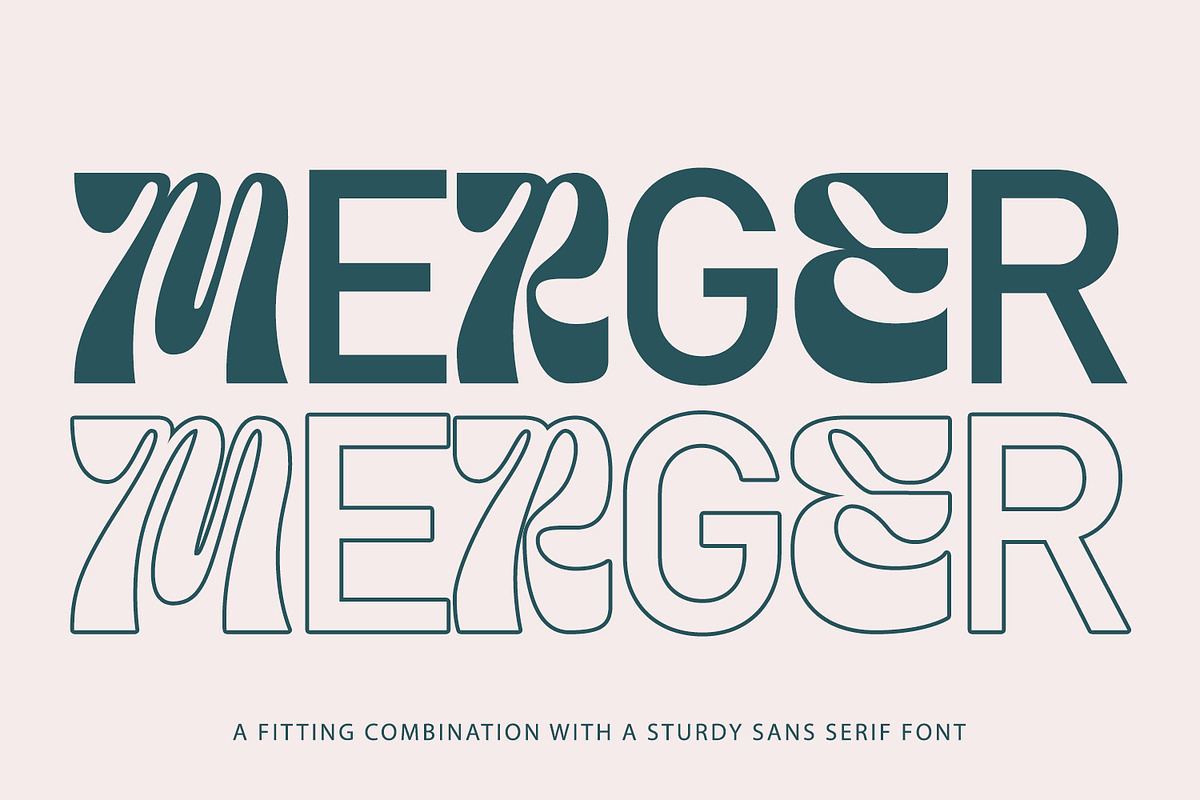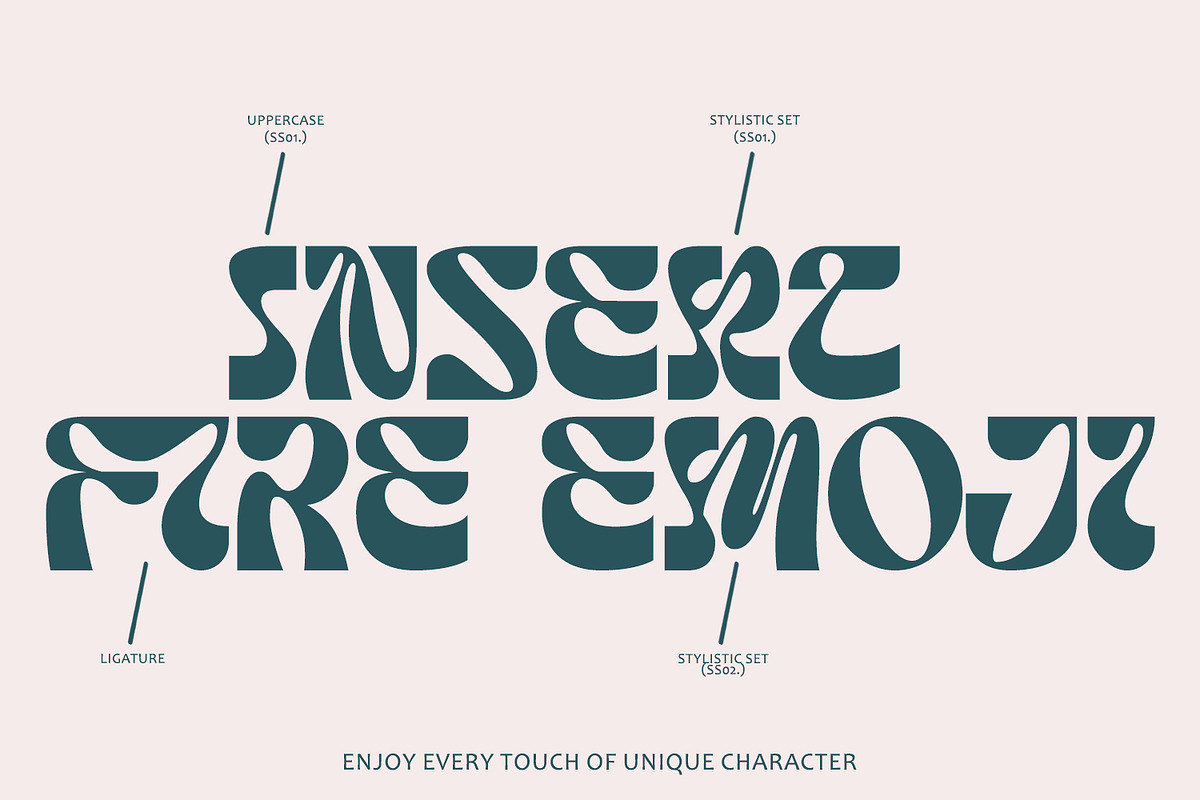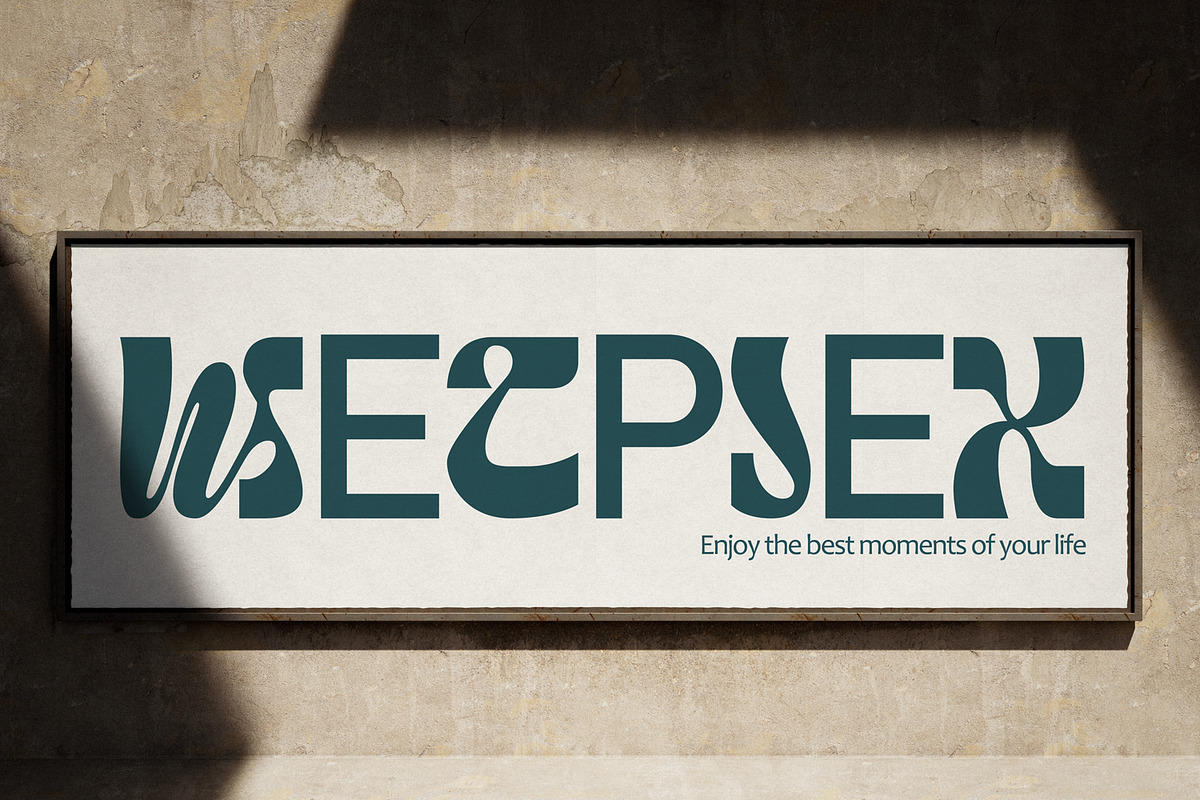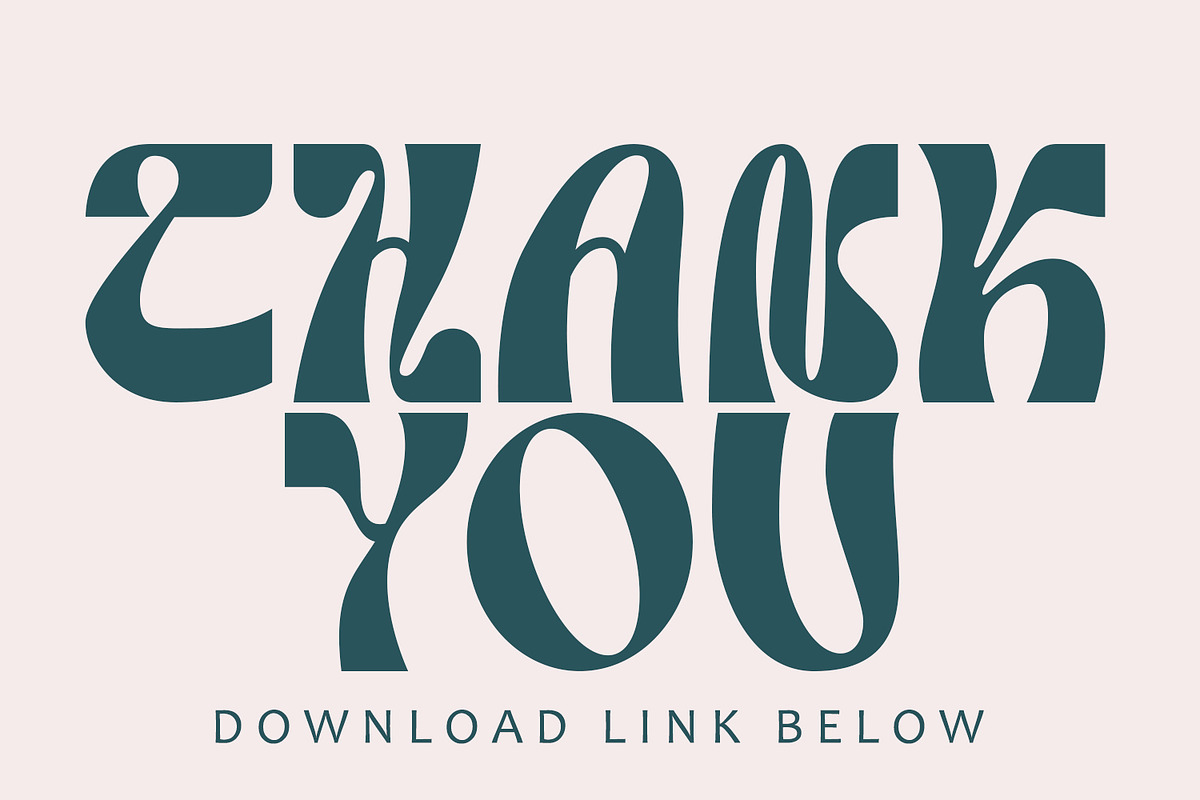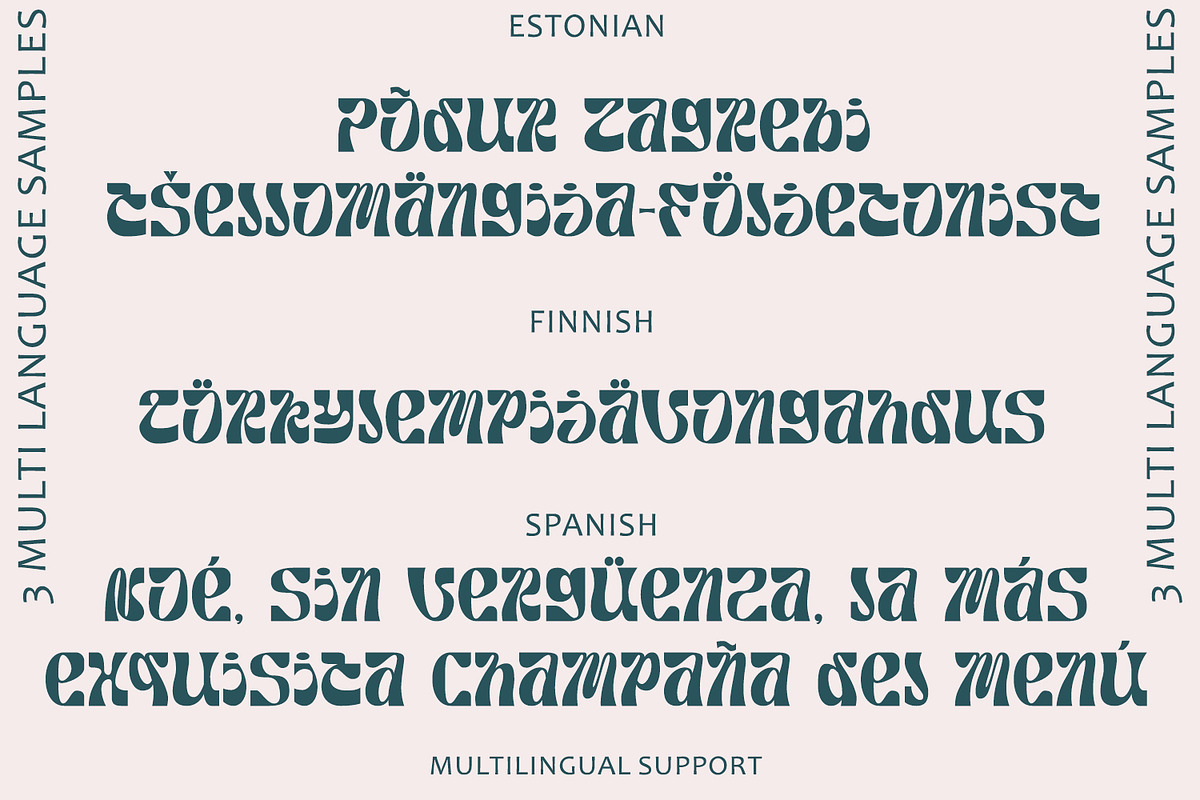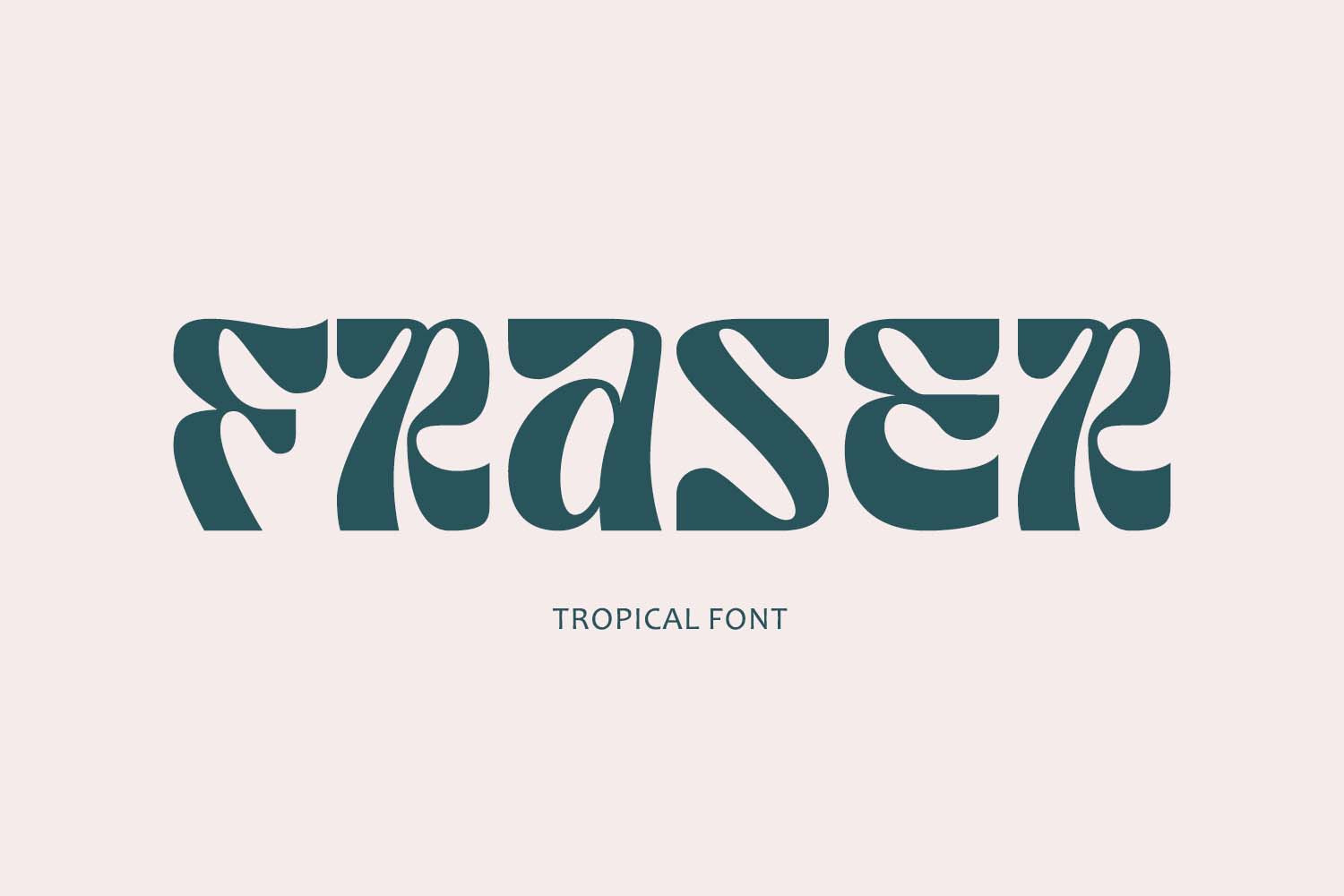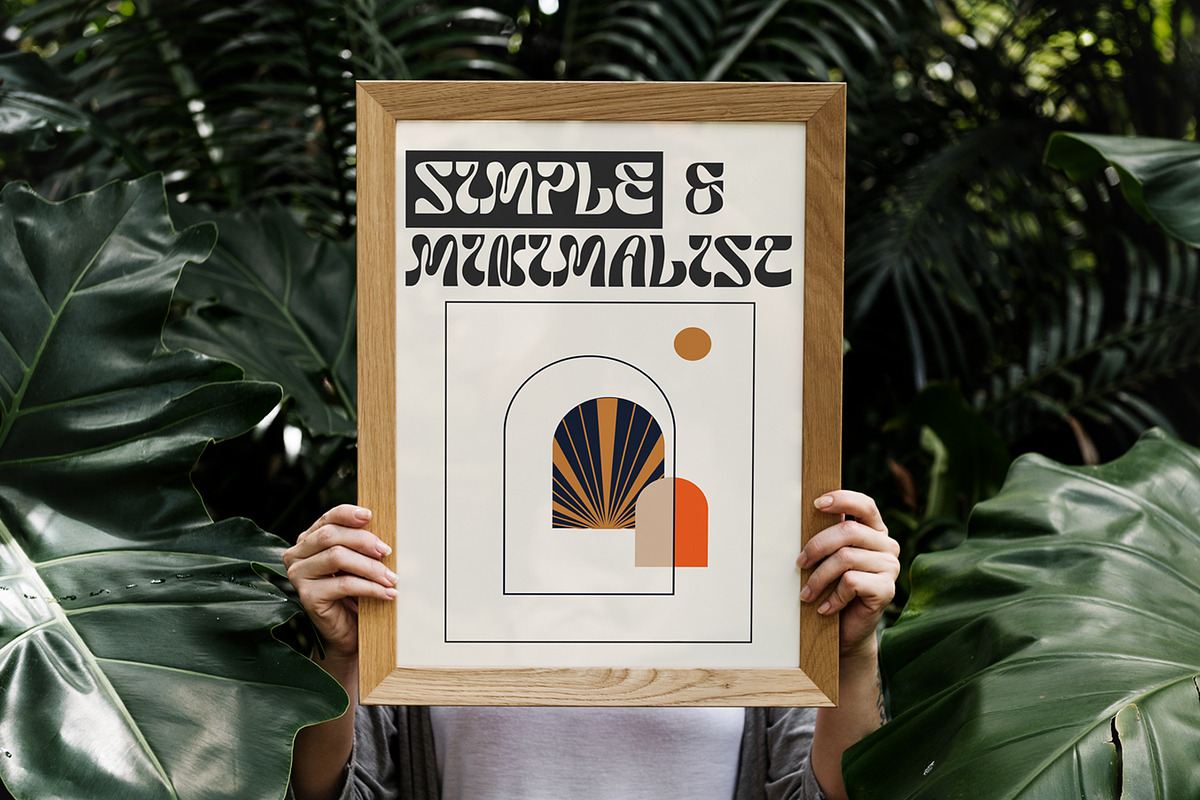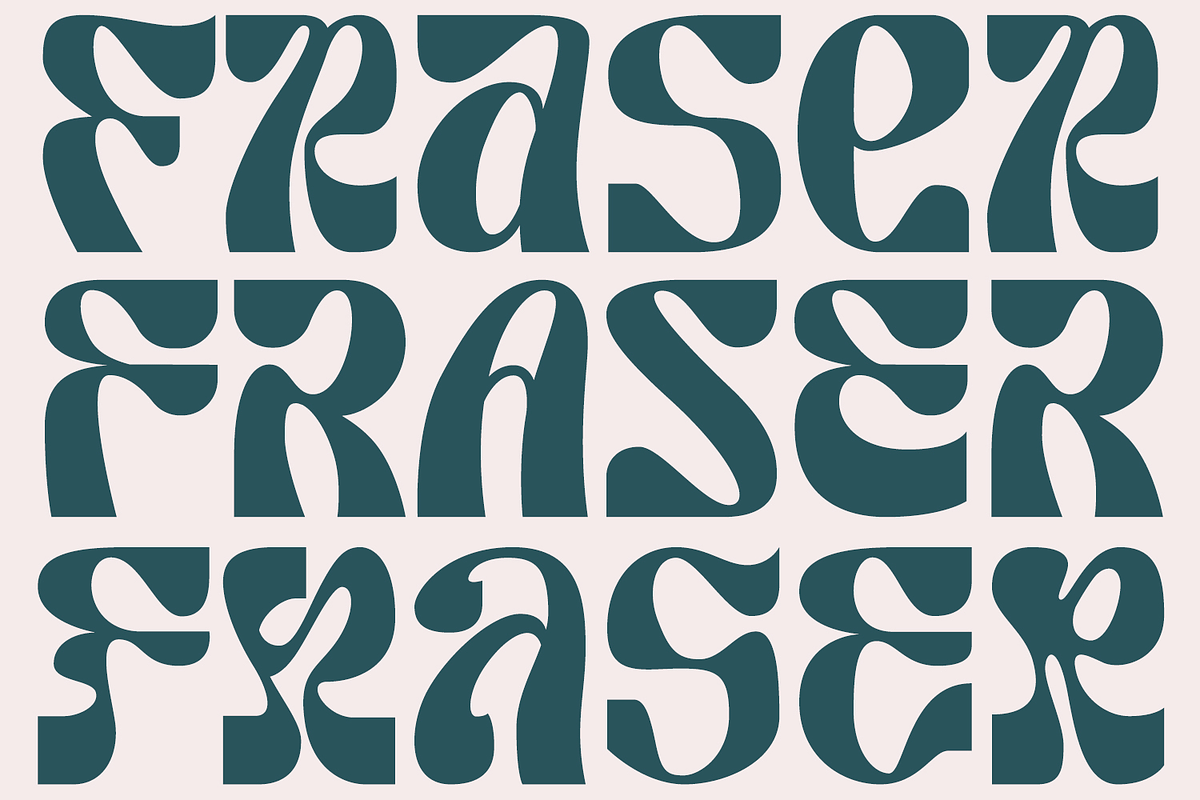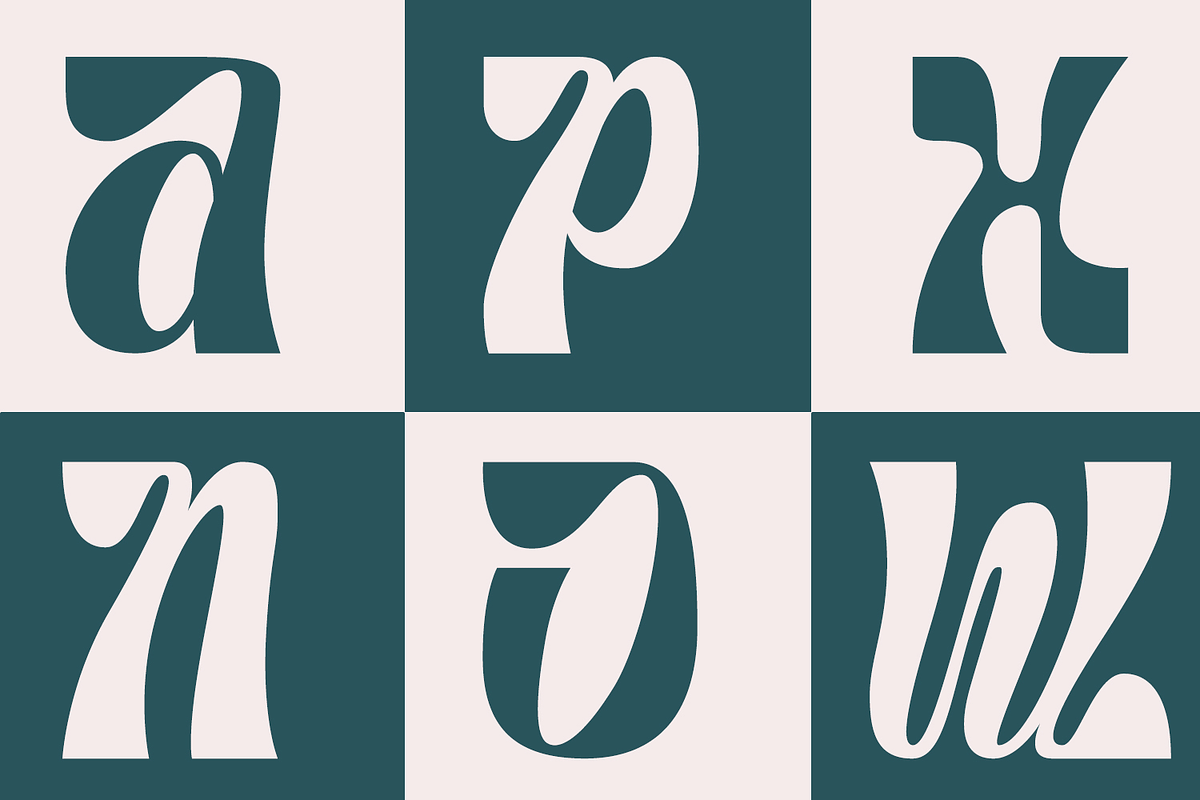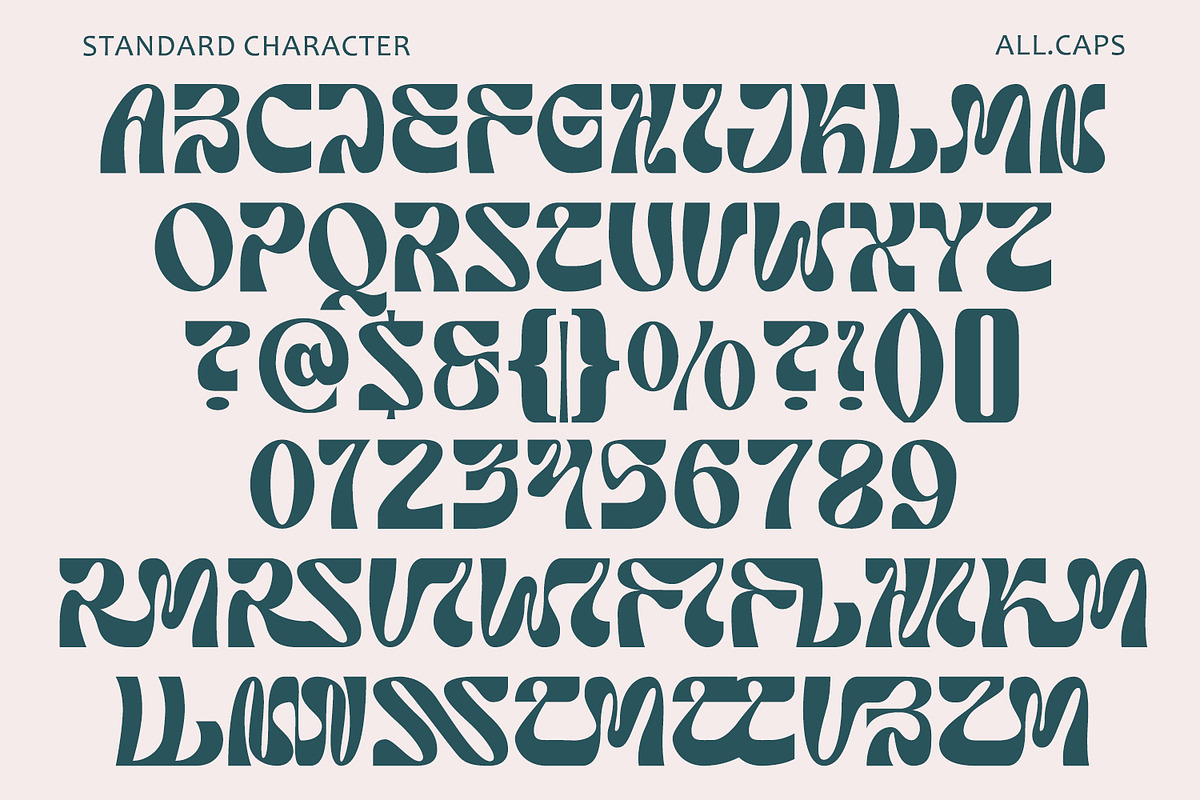
Fraser – Tropical Font
Fraser – Tropical Font often incorporate organic and flowing design elements, mimicking the curves and shapes found in nature, such as palm fronds, waves, or exotic flowers. These elements can add a sense of fluidity and movement to the typography.
if you are looking for a font that embodies a tropical or exotic aesthetic, you may be interested in fonts that are inspired by or commonly associated with tropical themes. Such fonts often feature characteristics that evoke feelings of warmth, relaxation, and the natural beauty of tropical environments. Here’s a general description of what you might expect from a font with a tropical theme:
Organic and Flowing: Tropical fonts often incorporate organic and flowing design elements, mimicking the curves and shapes found in nature, such as palm fronds, waves, or exotic flowers. These elements can add a sense of fluidity and movement to the typography.